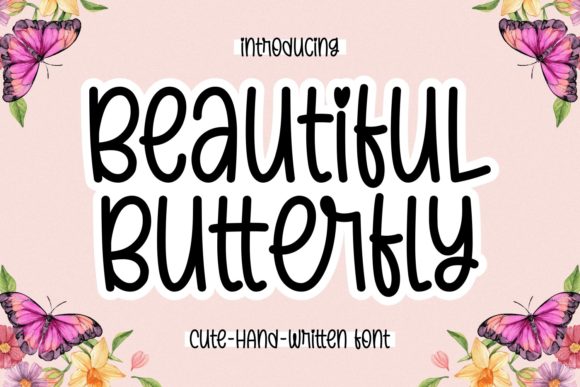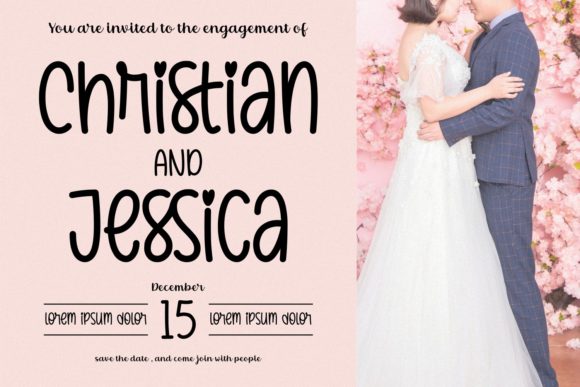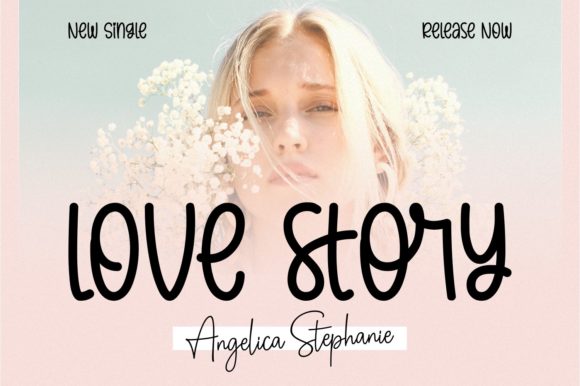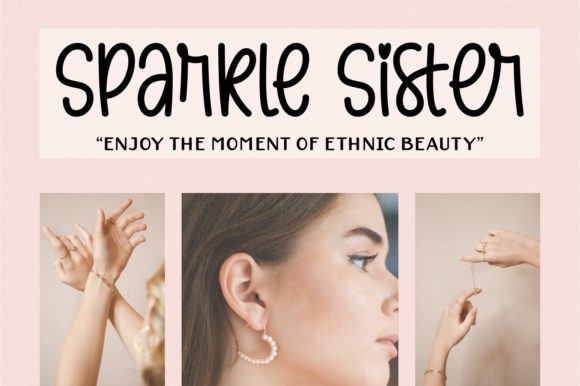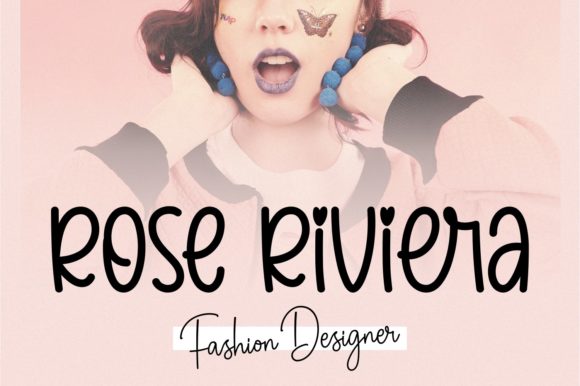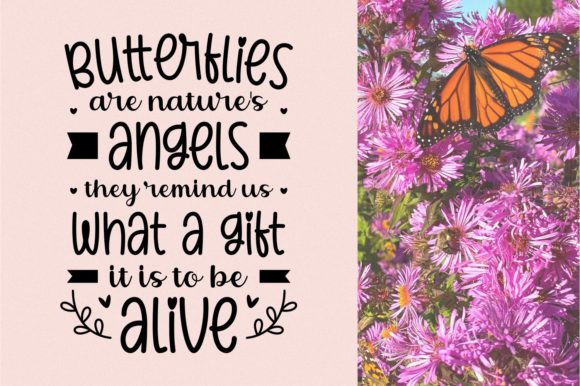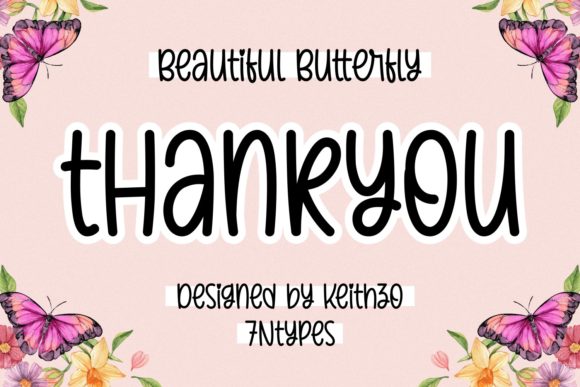
Beautiful Butterfly Font
About Beautiful Butterfly Font
Beautiful Butterfly is a unique and cute handwritten font. Whether you are using it for cartoon-related designs, children’s games, quotes, titles, brand names, book covers, posters, or just any creation that requires a touch of beauty, this font is a great choice.